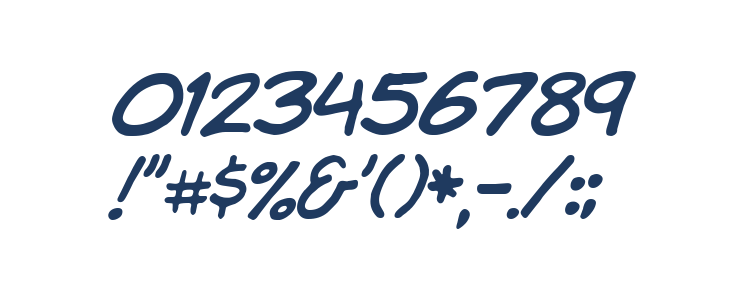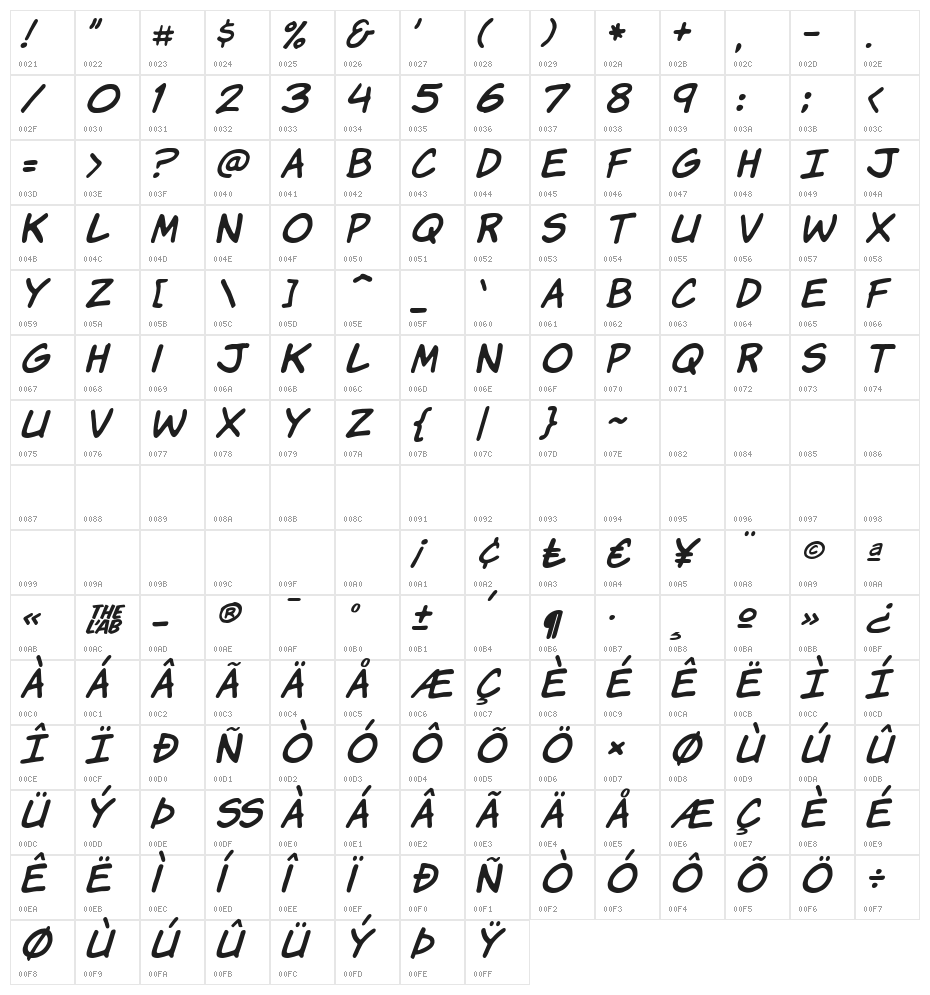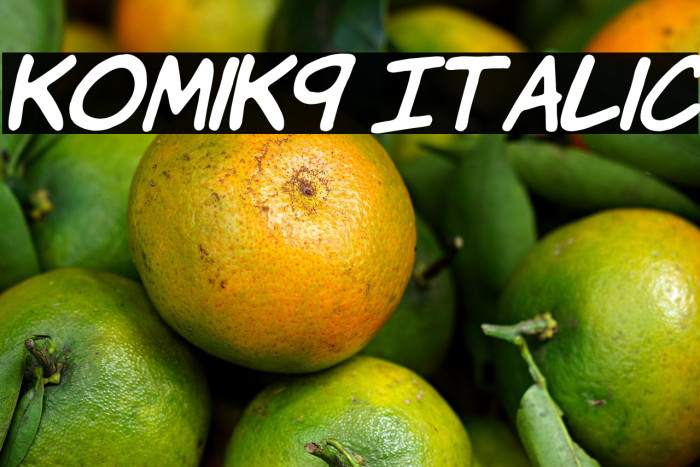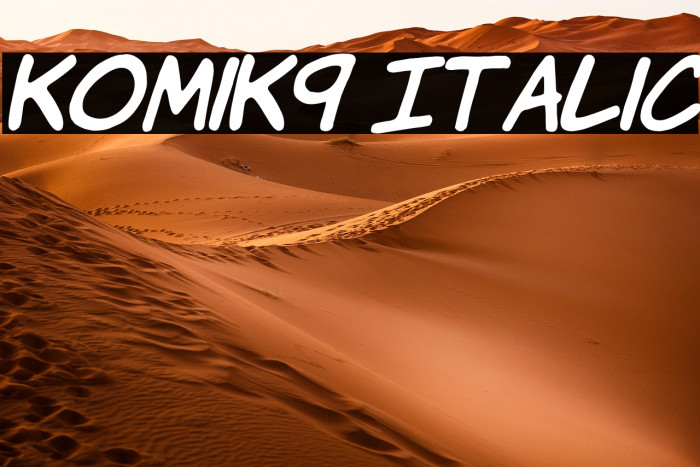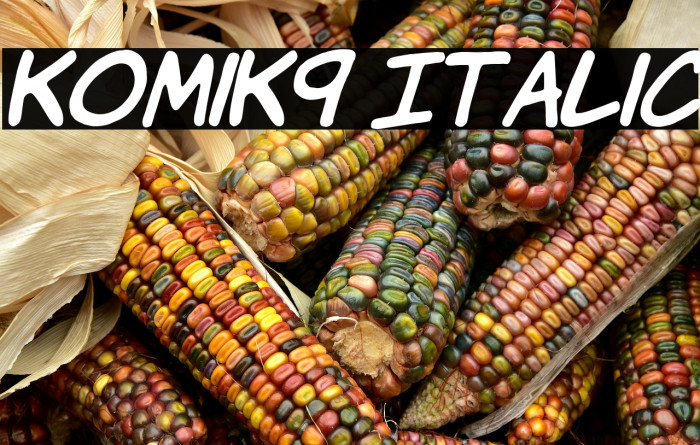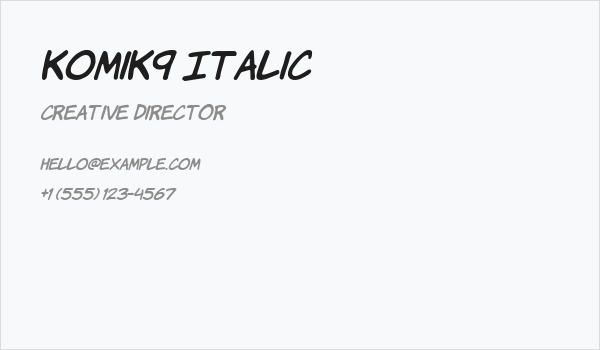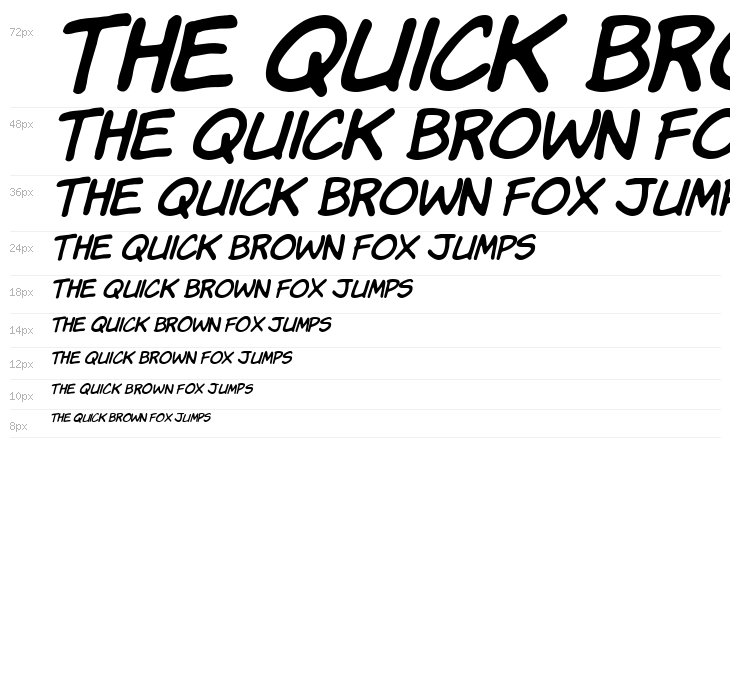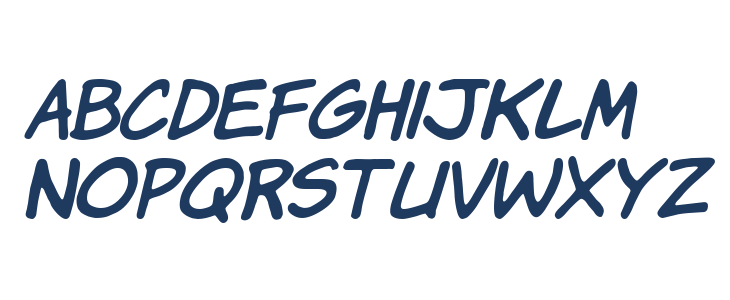
KomiK9 Italic Font
KomiK9 Italic Description
This playful and dynamic font features a bold, italicized style with a handwritten appearance. The characters are slightly slanted, giving a sense of motion and energy. The strokes are thick and rounded, creating a friendly and approachable look. The uppercase and lowercase letters maintain a consistent style, with a casual and informal vibe. The numbers and special characters are designed to match the overall aesthetic, ensuring a cohesive appearance across all text elements.
| Proposed Projects | Ideal for comic books, children's books, playful branding, and informal invitations. |